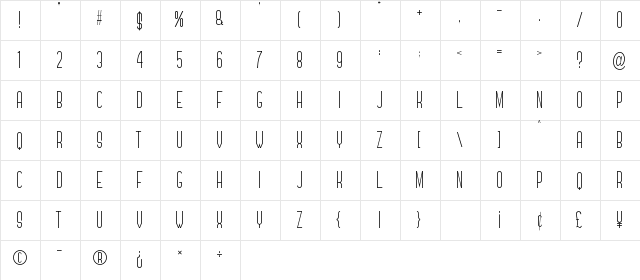
Forever Together Sans Light Regular
Design Context for Forever Together Sans Light Typeface
Forever Together Sans Light offers clean, dependable letterforms without strong stylistic allegiance, making it a practical choice for designers who need flexibility. Its slender proportions lend an understated elegance to any composition.